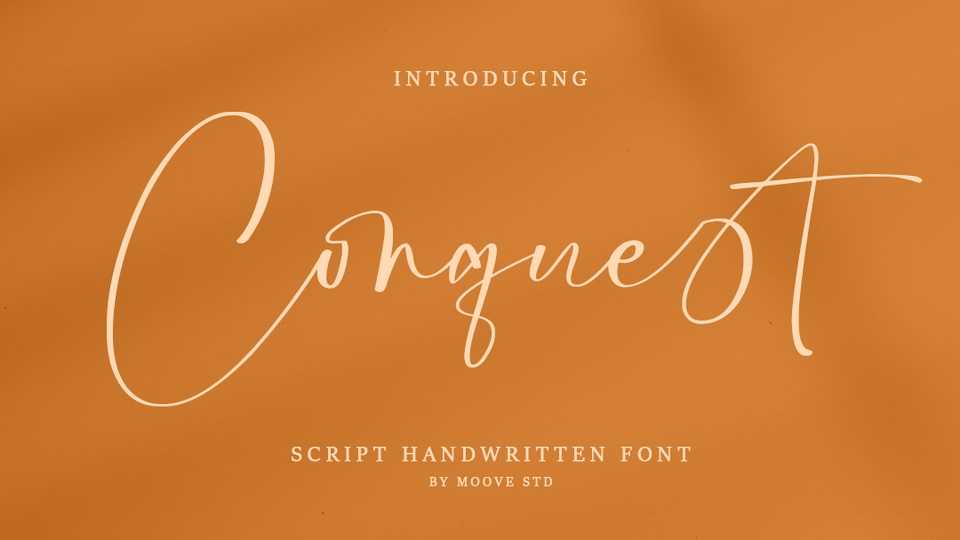
Download Conquest font, a stylish, thin lettered and relaxed script typeface with signature look. Conquest will add a luxury spark to any design project that you wish to create.
Designer: Moove Studio